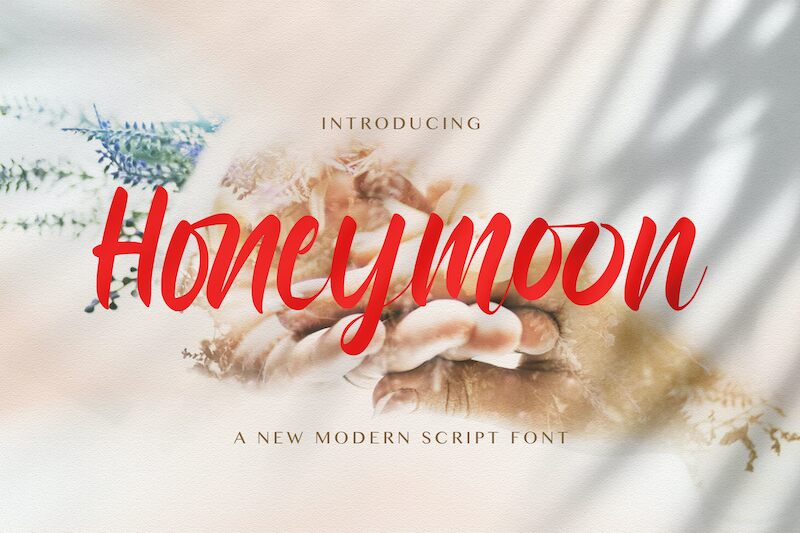
Honeymoon
Honeymoon is a charming semi-condensed handwritten font that adds a touch of whimsy to any project. Designed by StringLabs Creative Studio, this font is perfect for wedding invites, love letters, and romantic-themed designs. Its playful yet elegant style makes it ideal for branding projects related to beauty, fashion, and lifestyle industries. The semi-condensed width of the Honeymoon font allows for more text to fit in one line while maintaining its legibility. This versatile typeface will bring joy and personality to your creative endeavors.